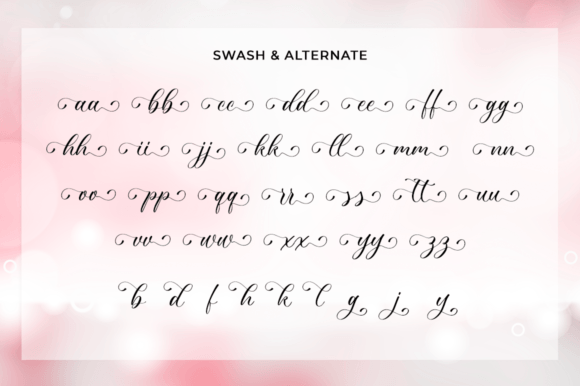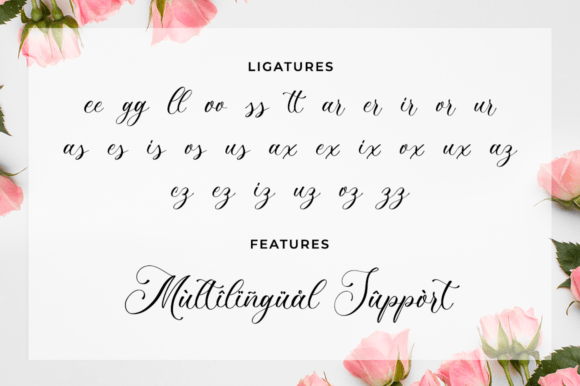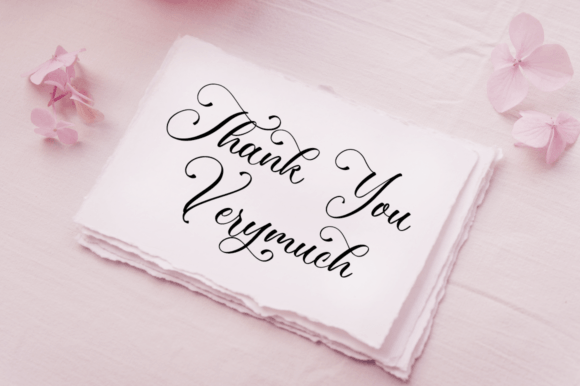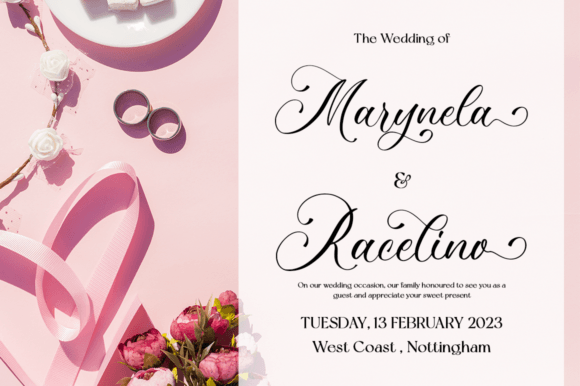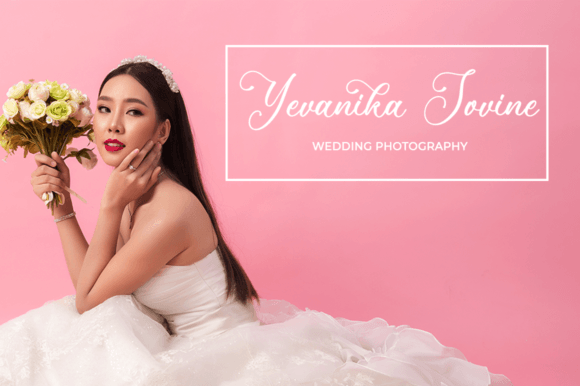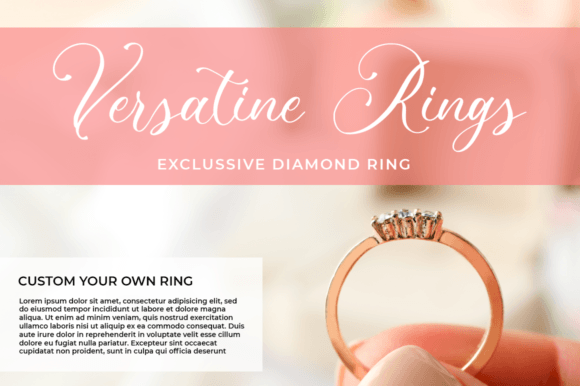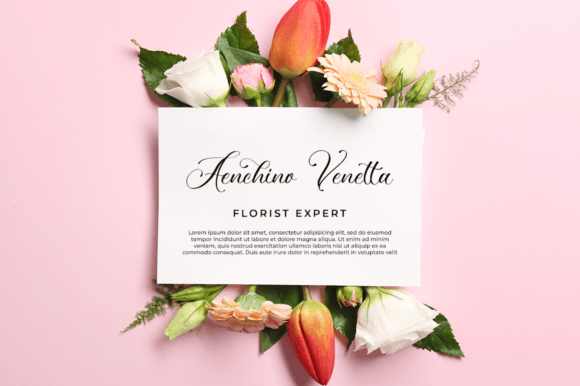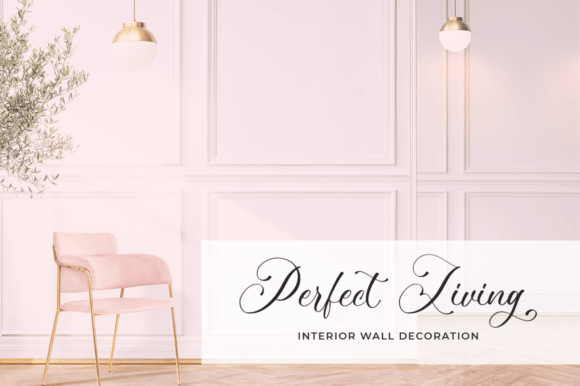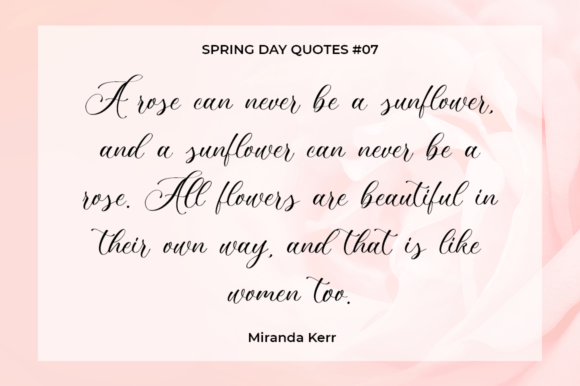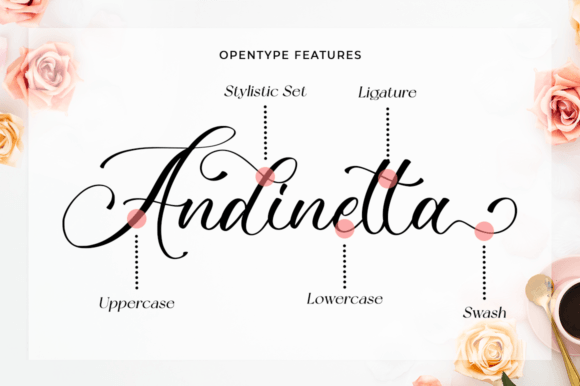
Vinegare Font
About Vinegare Font
The Vinegare Font Download is a delicate handwritten script that radiates elegance and charm. Carefully designed to provide a refined and refreshing look, Vinegare is perfect for creatives seeking a graceful typeface that enhances both digital and print projects.
This font is PUA encoded, giving you complete access to all its glyphs, swashes, and stylish alternates. With its elegant strokes and timeless appeal, Vinegare allows designers to bring sophistication into every creation.
Features of Vinegare Font
• A graceful and elegant handwritten script style
• Carefully crafted details for modern versatility
• Full PUA encoding for glyphs, swashes, and alternates
• High readability with a refined appearance
Best Uses for Vinegare Font
• Wedding invitations – Elegant and romantic typography
• Branding and logos – Perfect for luxury, fashion, and lifestyle brands
• Greeting cards – Adds charm to holidays, birthdays, and special events
• Social media graphics – Stylish posts that capture attention
• Event promotions – Posters and banners with timeless appeal
• DIY projects – Handwritten beauty for crafts and personal designs
Why Choose Vinegare Font
Its delicate yet confident strokes offer a sense of sophistication while remaining easy to read. Designers love it for its versatility, whether for elegant wedding stationery or polished brand identities.
With its PUA encoding and refined curves, it’s the perfect choice for wedding invitations, branding, or creative designs.